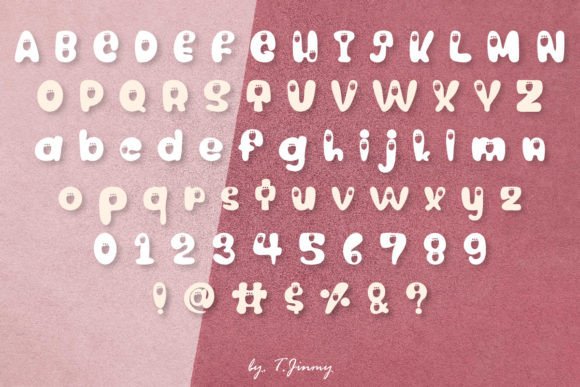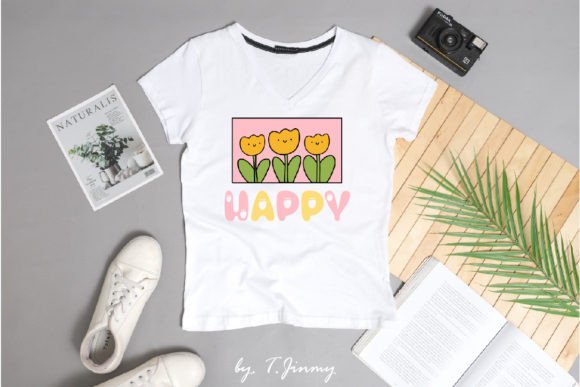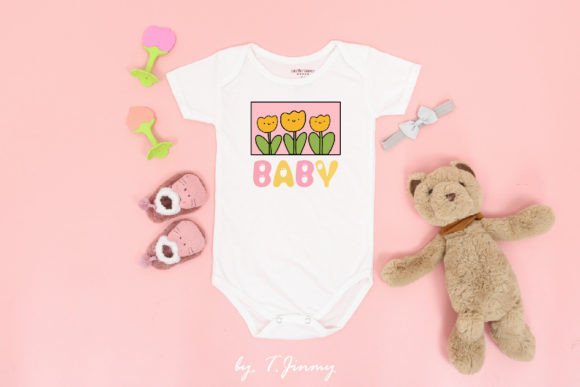
The Perfect Petal for Your Creative Projects
Have you ever stared at a blank page, feeling stuck and unsure of where to start? You’ve got an idea, but it’s just out of reach – like a delicate flower waiting to bloom. That’s exactly what happened to me when I discovered the Bloom Font. Its charming characters and whimsical feel instantly sparked my creativity and set my imagination free.
The Bloom Font is a delightful display font designed to add a touch of personality to your designs. Whether you’re crafting a logo, creating social media graphics, or working on a DIY project, this font is the perfect fit. Its quirky charm makes it stand out from the ordinary, giving your work a unique and eye-catching flair.
As a designer, you know how valuable a versatile font like the Bloom Font can be. It’s the perfect tool to help you bring your creative ideas to life and make a lasting impression on your audience.
Bloom Font Key Features
- Font Family: Bloom is a modern sans-serif font family designed for digital use. It comes in 6 font styles: Light, Regular, Medium, Bold, Heavy, and Black.
- Character Set: Bloom supports a wide range of languages, including Latin, Cyrillic, Greek, and many others, with over 1,000 glyphs in each font style.
- Resolution: Designed for high-resolution displays, Bloom font is optimized for use at resolutions up to 300 DPI, ensuring crisp and clear text even at larger sizes.
- Unique Characteristics: Bloom font features a unique blend of geometric and organic shapes, giving it a friendly and approachable feel while still maintaining a level of sophistication.
- Font Size: The font family is available in a range of sizes, from 12pt to 72pt, making it suitable for use in a variety of applications, from body text to headlines.
Bloom Font Review
As a designer, I was excited to dive into the Bloom Font and see what it had to offer. Here are my thoughts:
The Bloom Font has a lovely, delicate feel to it. The handwritten feel is perfect for creating a personal touch in any design. The font is also highly customizable, making it easy to adjust the style to fit your needs.
- Unique character set – The font includes a wide range of characters, from punctuation to symbols, making it perfect for creating a cohesive design.
- High-quality vectors – The font is built with high-quality vectors, ensuring that it looks great at any size.
While the Bloom Font has a lot to offer, there are a few limitations to consider:
- Limited language support – The font only includes characters for a few languages, which may limit its use for international designs.
- Not ideal for body text – The font is best suited for headings and titles, as the handwritten feel can be difficult to read in large blocks of text.
Overall, I’m impressed with the Bloom Font’s unique style and high level of customization. While it may not be perfect for every project, it’s a great choice for designers looking to add a personal touch to their designs.
Getting the Most Out of Bloom Font
To get the most out of the Bloom font, use it for:
1. Titles and headings for a touch of elegance.
2. Branding and logos for a unique and recognizable look.
3. Wedding invitations and event graphics for a whimsical feel.
The Bloom font is commonly used for:
1. Wedding invitations and event graphics.
2. Branding and logos.
3. Titles and headings in design projects.
Alternatives to Bloom Font for Designers
Lato Font is a modern sans-serif font that is highly legible and versatile. It is ideal for use in digital media, such as websites, apps, and social media platforms. Lato Font is more geometric and clean compared to Bloom Font, making it a better choice for modern and minimalist designs.
Montserrat Font is a sans-serif font that originated in Argentina and is known for its urban feel. It is perfect for use in headings and titles, as it is highly legible and attention-grabbing. Montserrat Font is more condensed and bold compared to Bloom Font, making it a better choice for creating a strong visual identity.
Open Sans Font is a clean and modern sans-serif font that is highly legible and versatile. It is ideal for use in digital media, such as websites, apps, and social media platforms. Open Sans Font is more neutral and subtle compared to Bloom Font, making it a better choice for creating a clean and minimalist design.